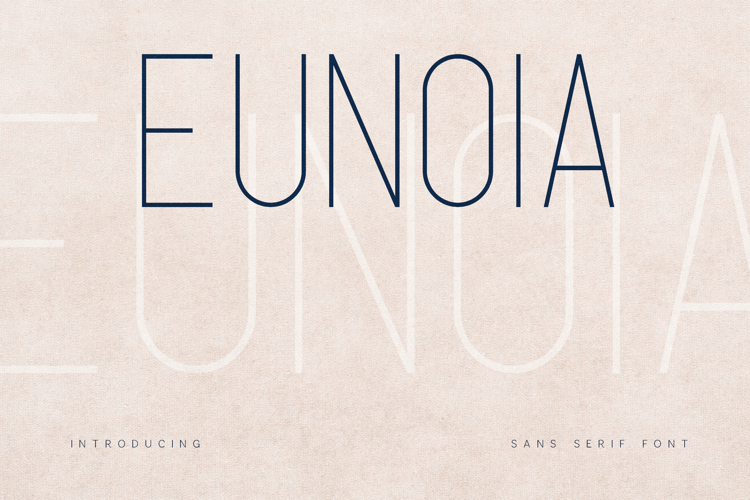
ENOS Futuristic Fonts - Bold, Modern Typefaces
Embrace the Future of Typography with ENOS Fonts
Step into the future of design with ENOS fonts, a curated collection of unique and eye-catching typefaces. These fonts are your key to crafting visionary designs that capture attention and stand out in the competitive digital marketplace. Ideal for creatives who are always on the lookout for the latest in typographic innovation, ENOS empowers you to push the boundaries of your creative work.
→ Cutting-Edge Typography: Perfect for designers, marketers, and creatives seeking modern and innovative fonts.
→ Versatile Application: Ideal for digital design, branding, advertising, and more, ensuring your projects stand out.